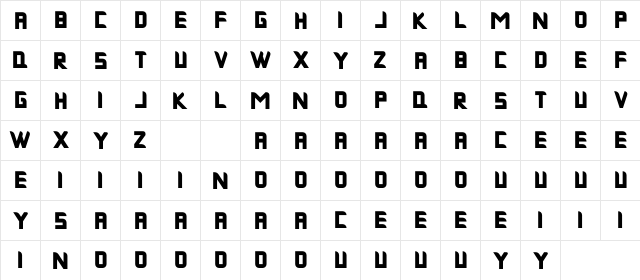
Musk Night Bold
Design Context for Musk Night Typeface
Musk Night is a composed and adaptable typeface that performs quietly and consistently across a wide range of design contexts. Its bold stroke weight gives it real presence on the page.